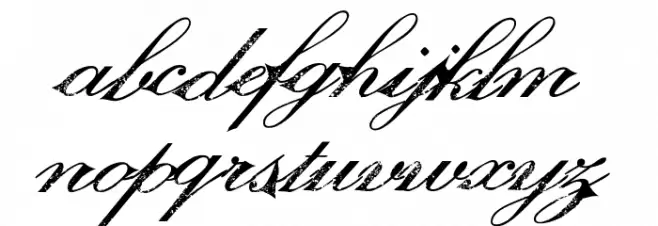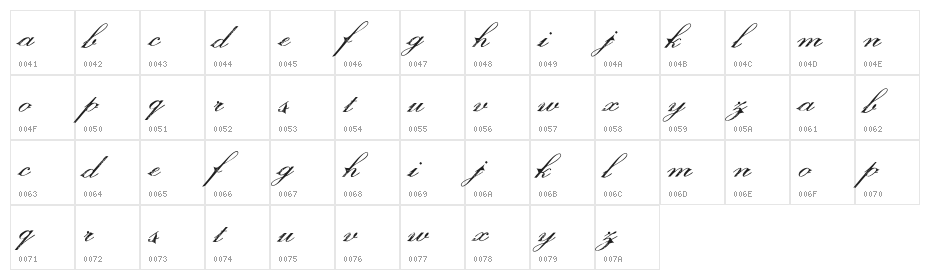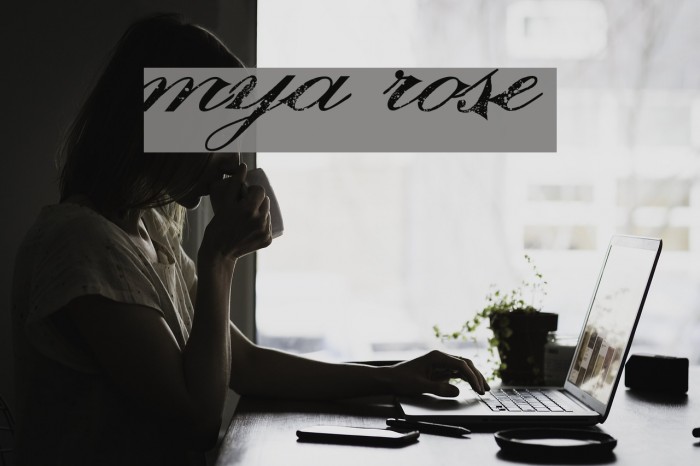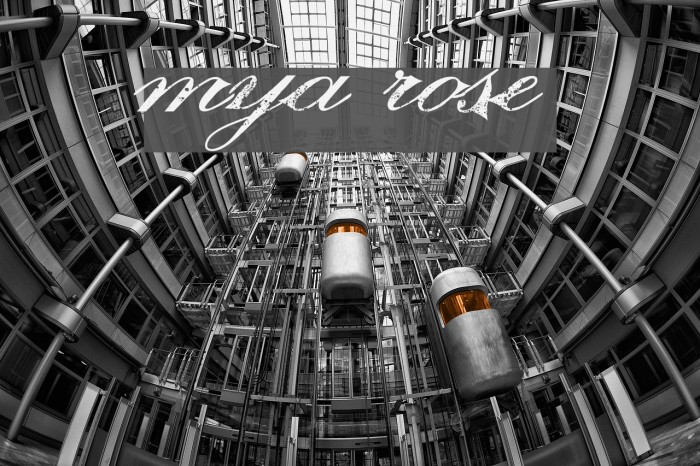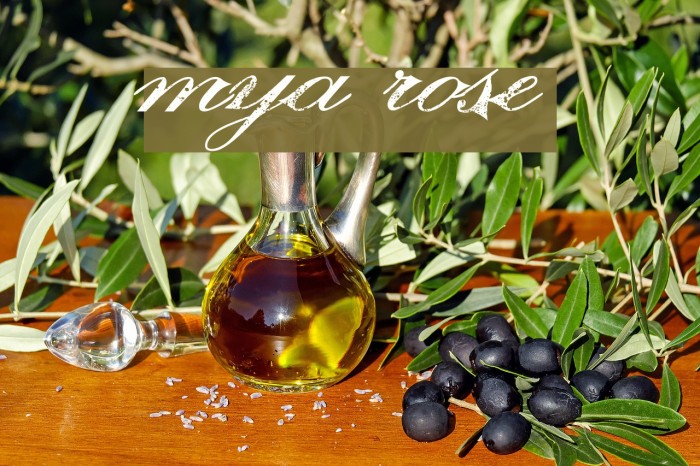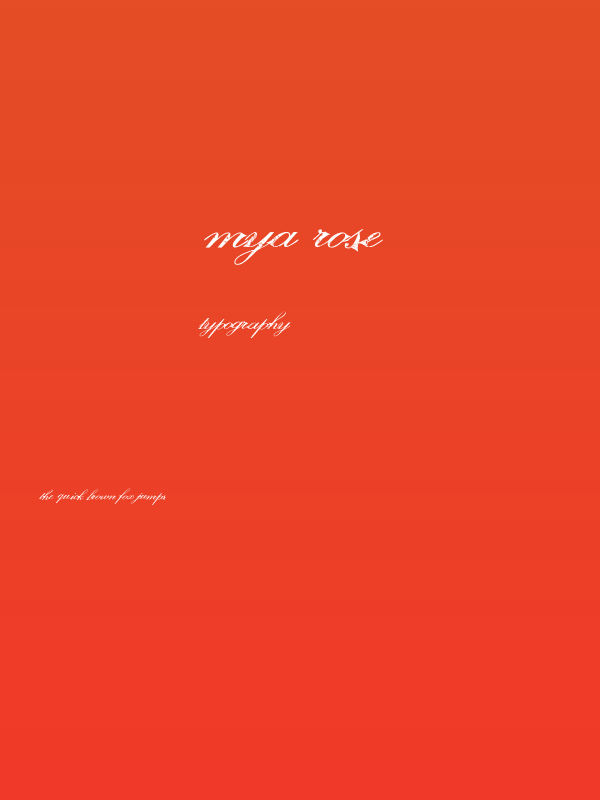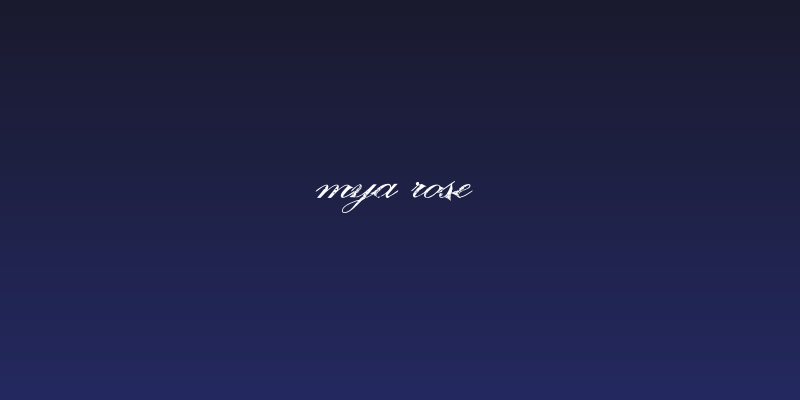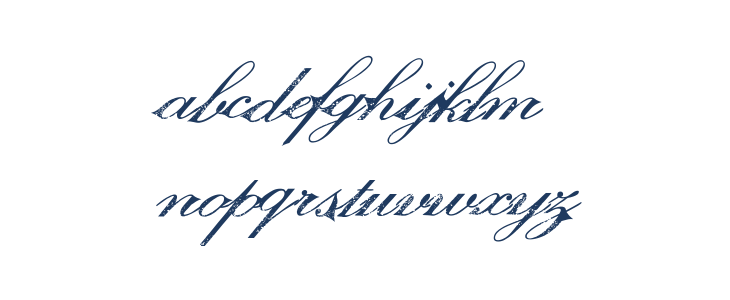
mya rose Font
mya rose Description
This font features an elegant, cursive style with a textured, distressed appearance. The letters are connected in a flowing manner, reminiscent of classic calligraphy, yet with a modern twist due to the rough, grunge-like texture. The strokes are smooth and fluid, with a slight slant to the right, adding a sense of motion and dynamism. The texture gives it a unique, handcrafted feel, making it stand out in any design. The overall look is sophisticated yet edgy, perfect for projects that require a touch of elegance combined with a modern, artistic flair.
CategoriesCalligraphic
Overall StyleModern, Decorative
Use CaseLogos, Invitations, Artistic projects
Proposed ProjectsIdeal for wedding invitations, branding, logos, and artistic posters.